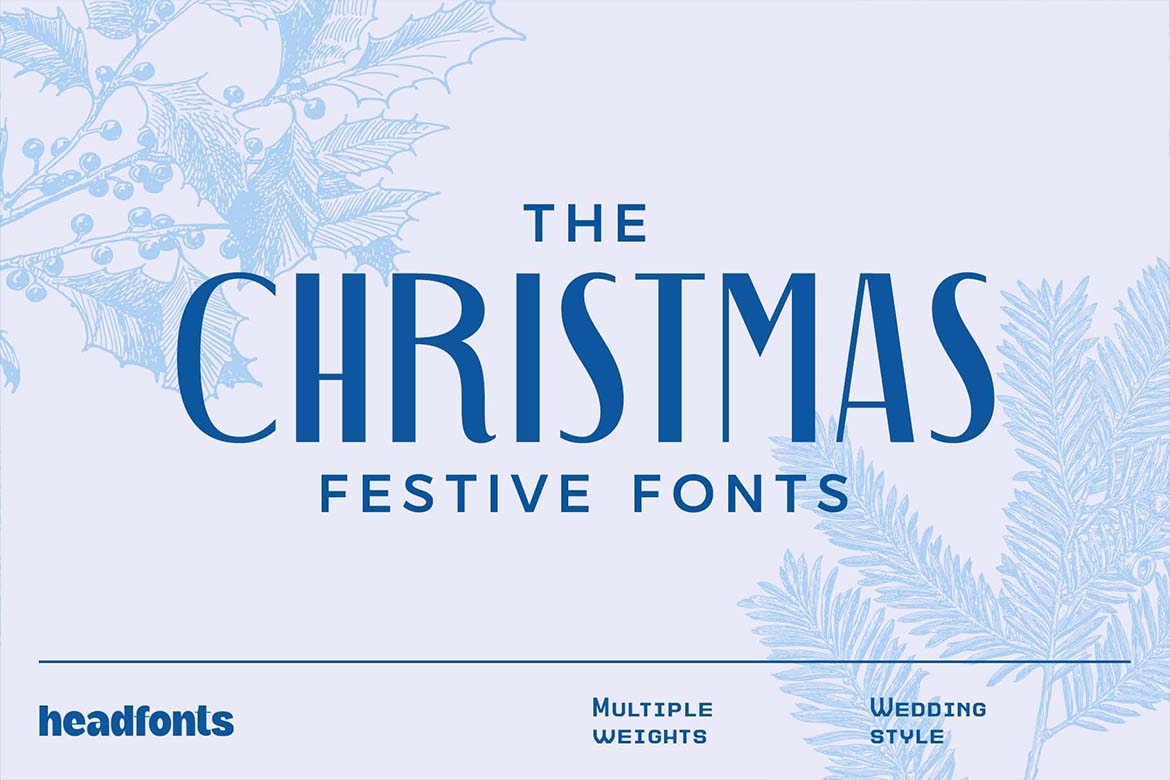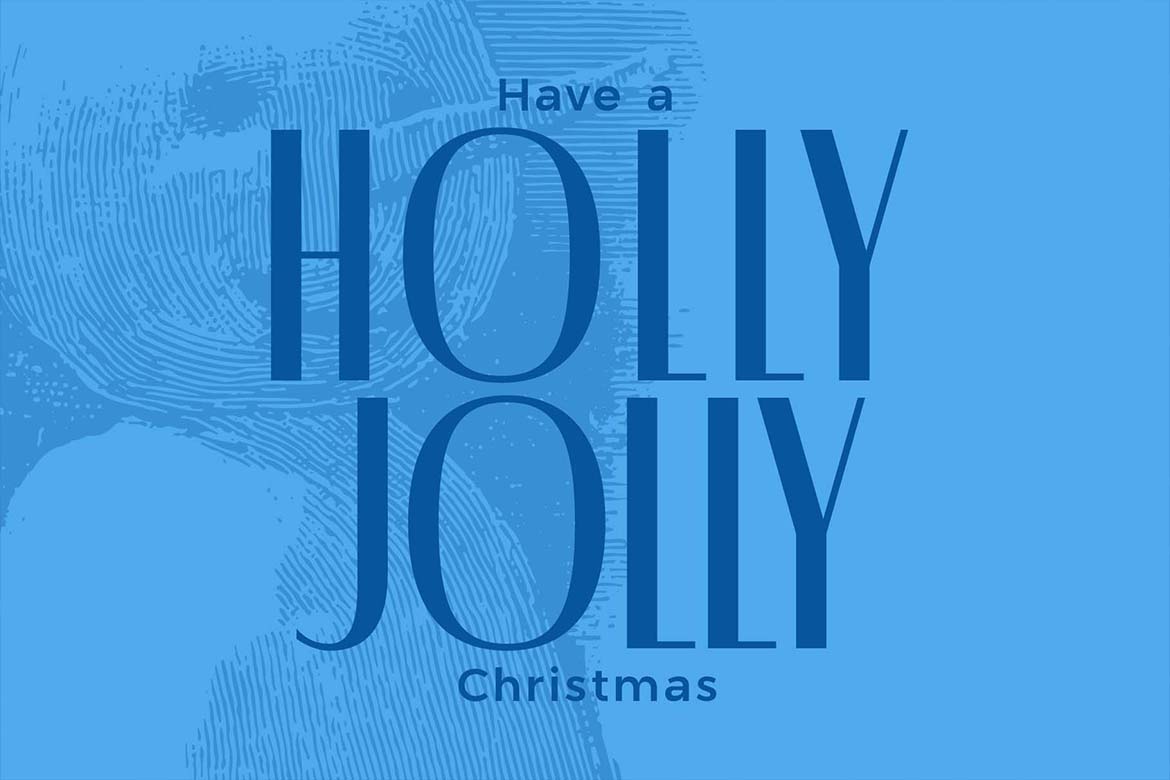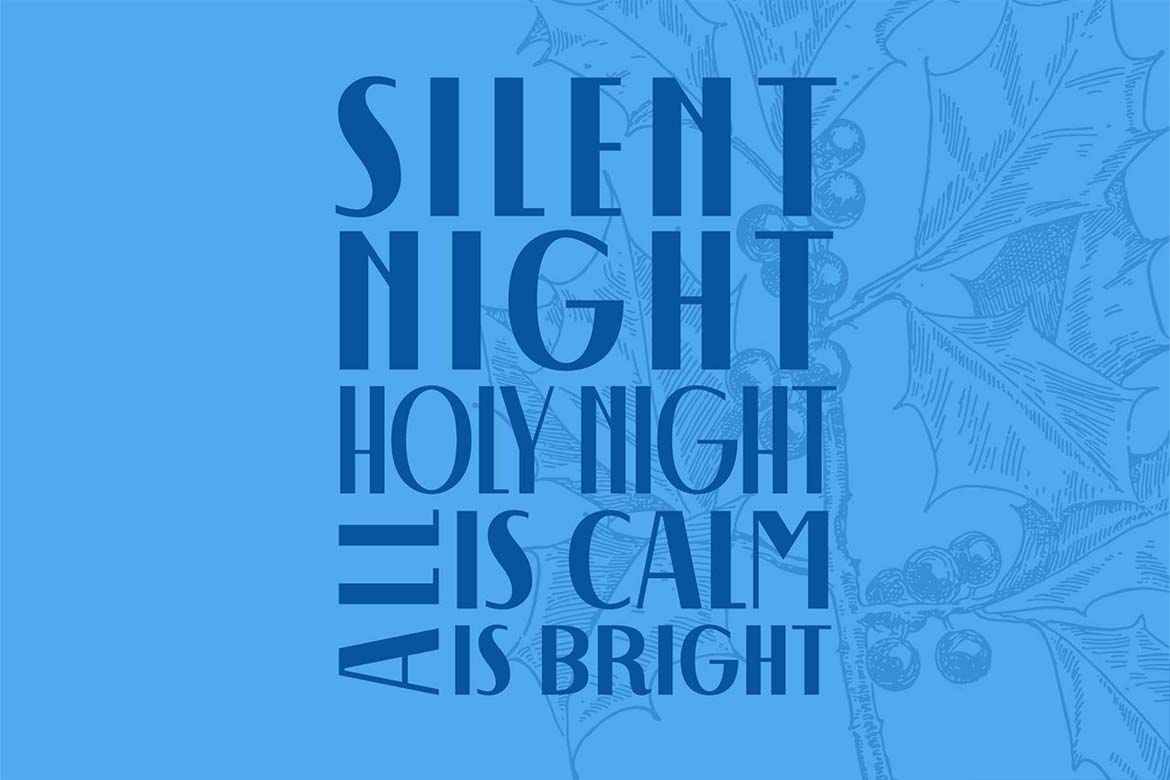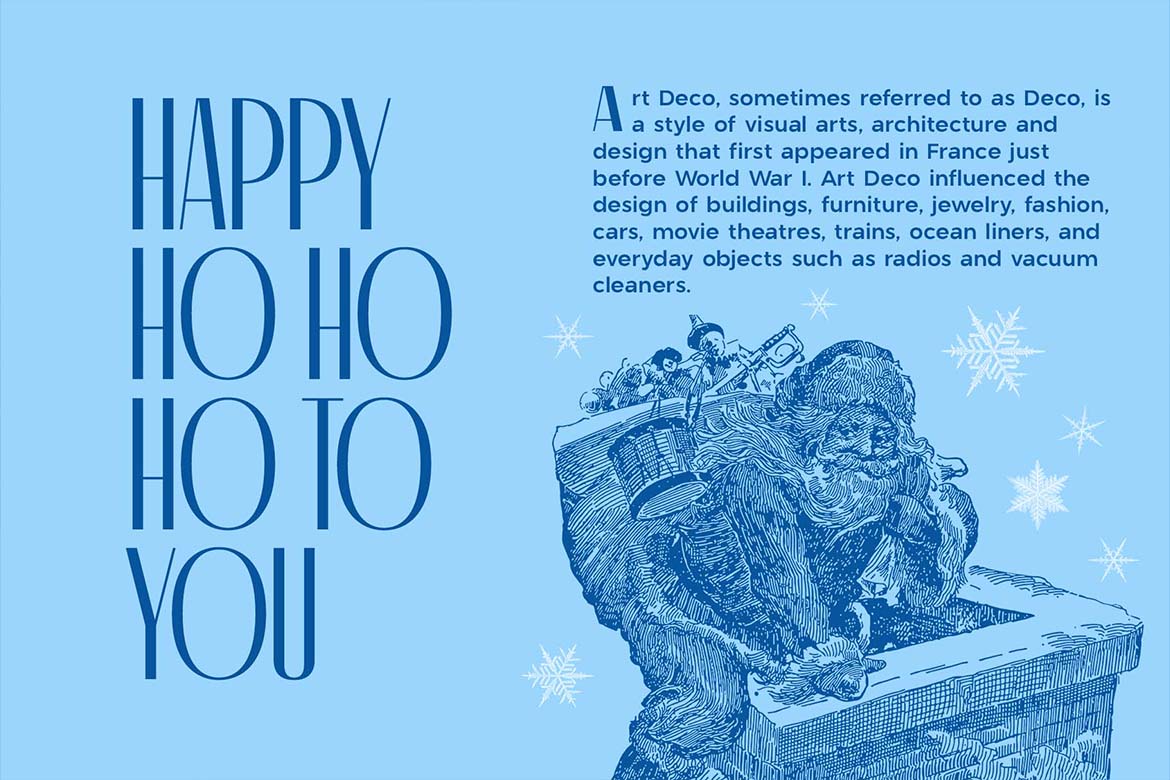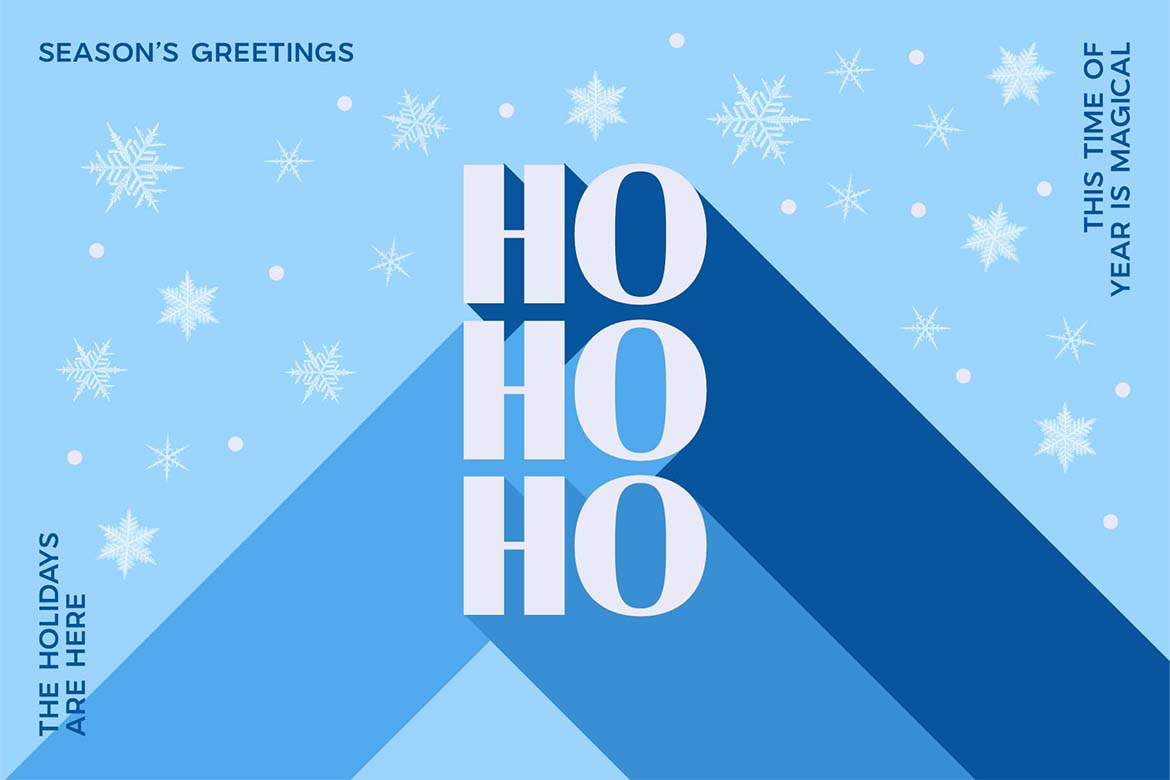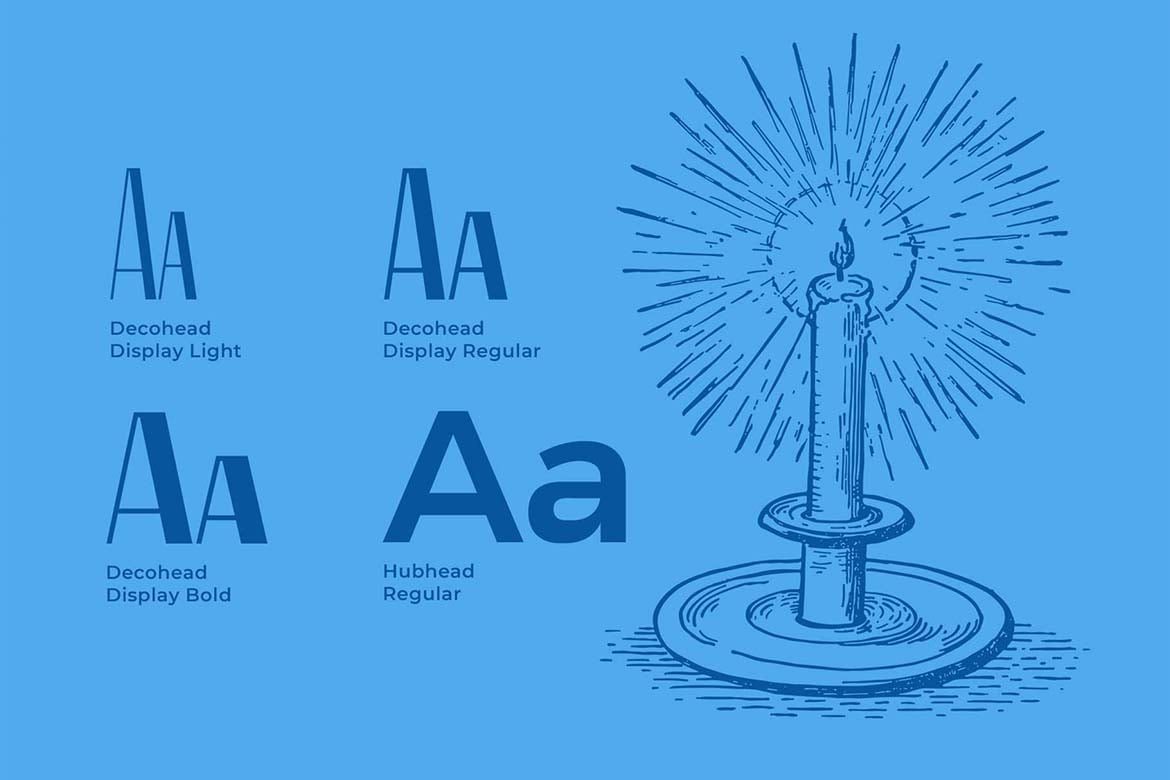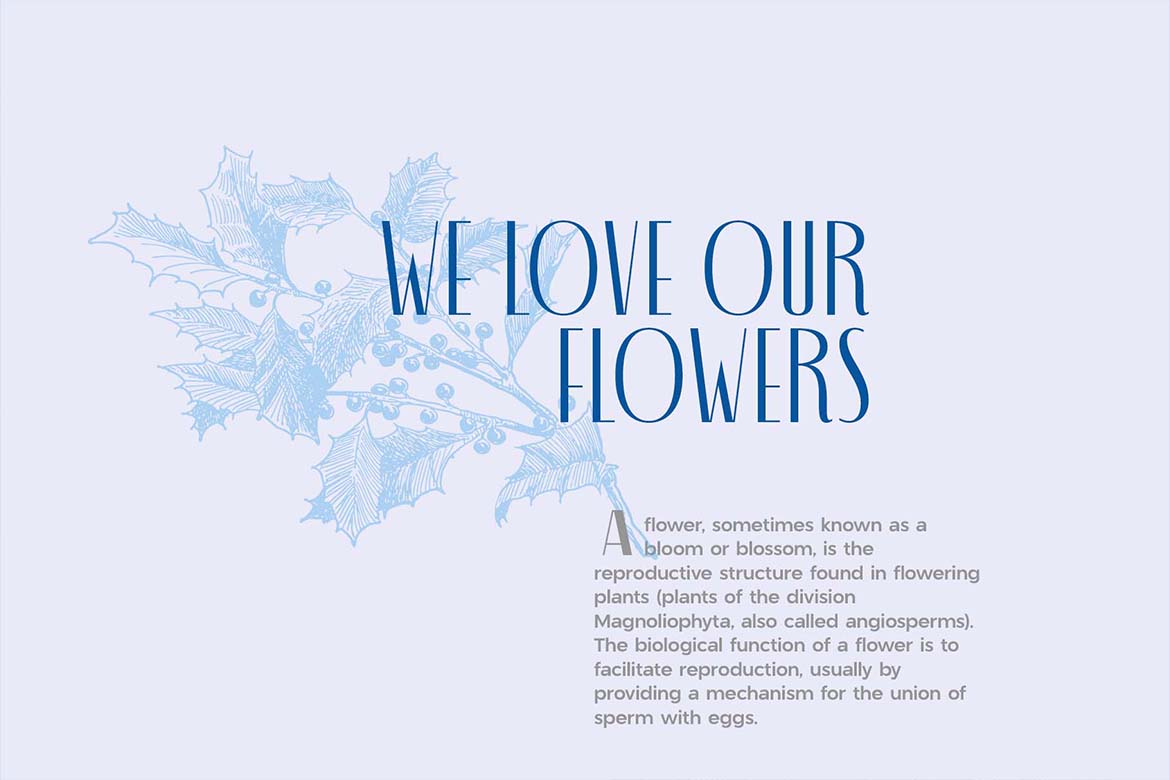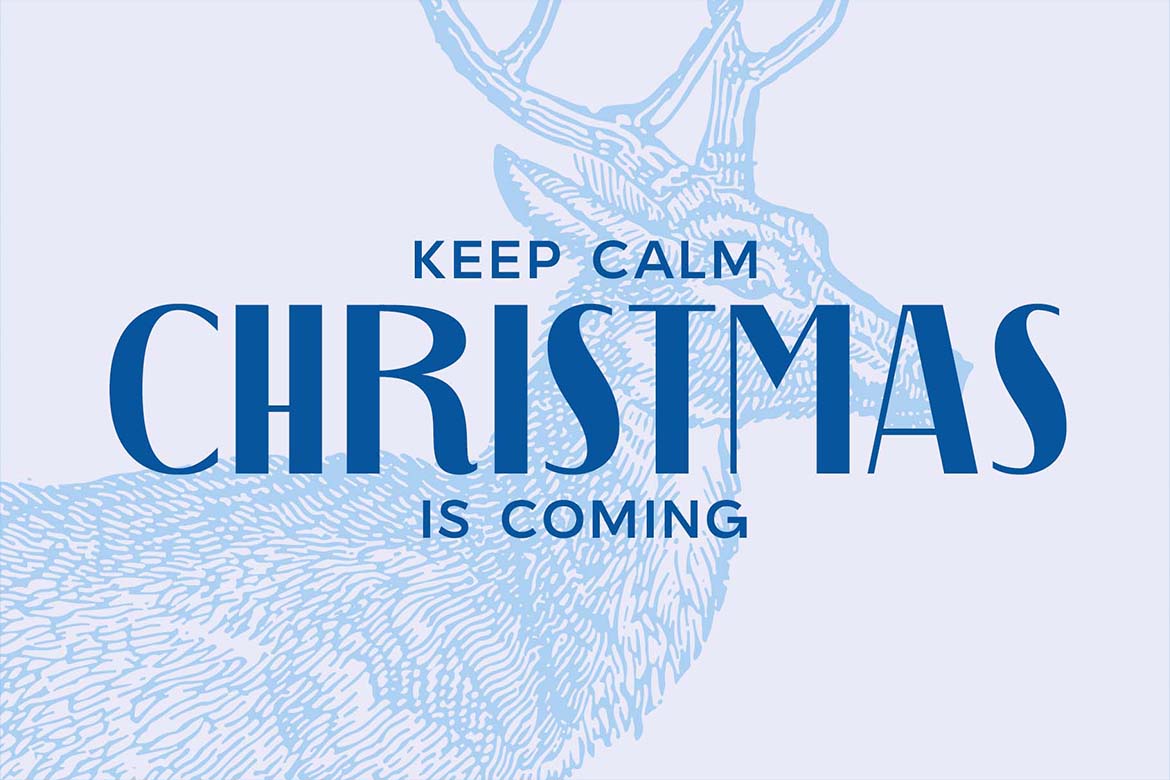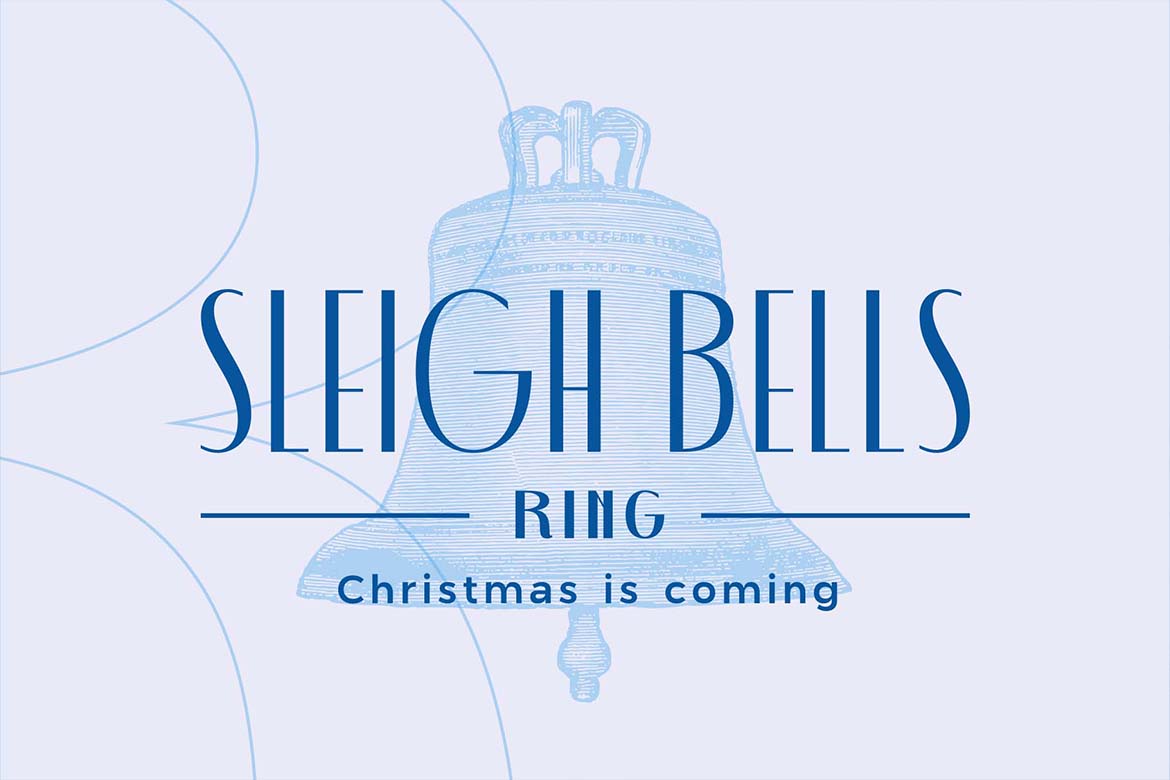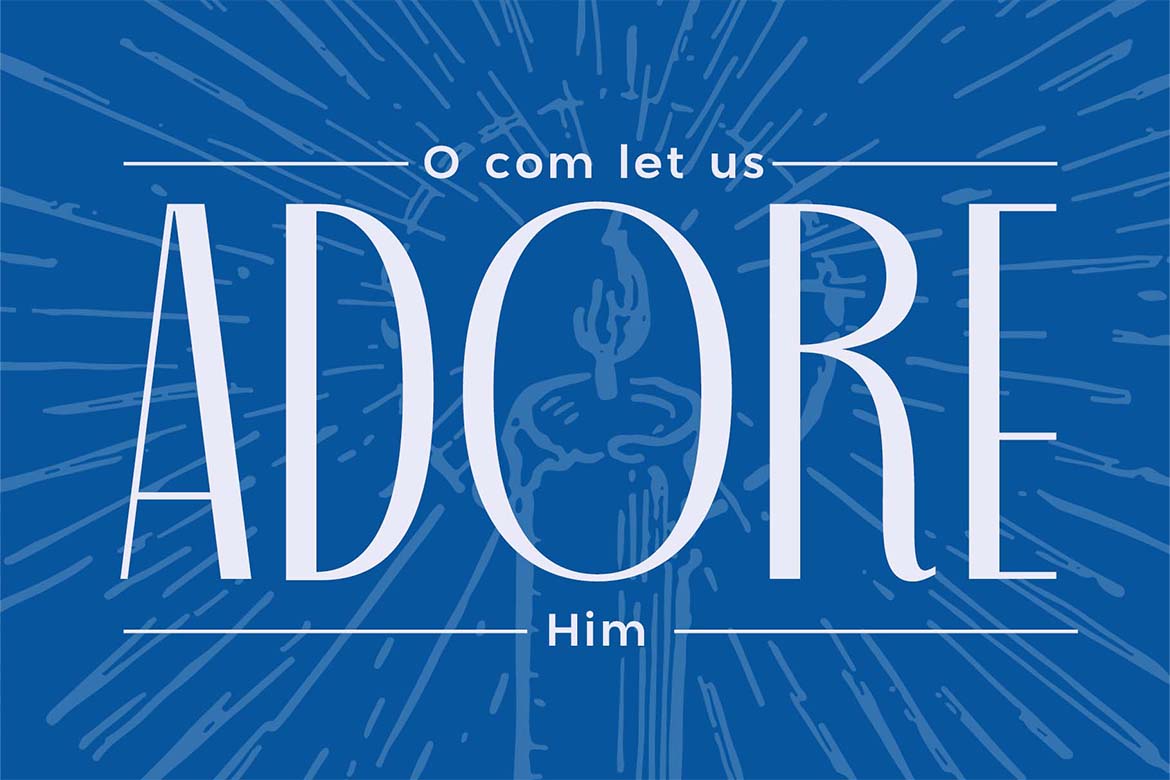
The Christmas fonts
Introducing The Christmas Fonts, a contrasting pair of festive fonts. One decorative, while the other one, a simple and elegant sans serif, together making the best duo for your Christmas designs. This pairing is versatile, being a combination of an exquisite font like Decohead Display with Hubhead, an utilitarian font with modest decorative accents, a more minimal feel than his companion. Decohead Display has three weights, while Hubhead stands alone, as a one weight font. Decohead Display has uppercase, and lower uppercase characters, and a standard Latin script support with numerals while Hubhead has uppercase and lowercase characters and extensive Latin script language support. You can use this merry and bright duo for almost any festive design project that requires a glamorous, decorative whisper. Merry Christmas to you all!